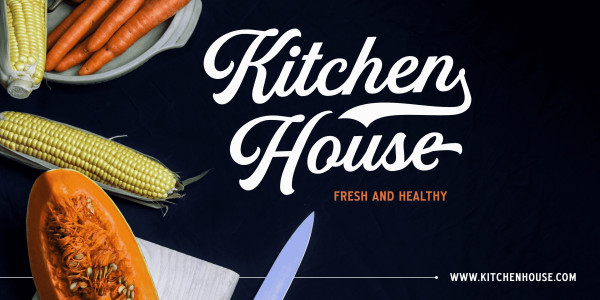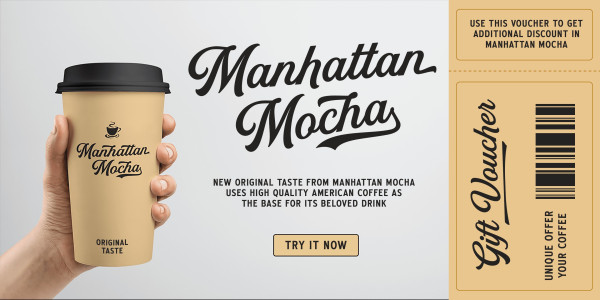
United Kings Font
United Kings Font, is a masterfully crafted formal script font that exudes an air of perfection and fine art.
The exquisite letterforms of United Kings make it a great choice for formal logotypes.
Use ¤ to make tail swashes, or multiple for longer swashes.
Example: Kingdom¤¤¤
Use underscores _ anywhere in a word to make an underline.
Example: Belo__ved
Use # after any letter to give it a crown.
Example: Que#en